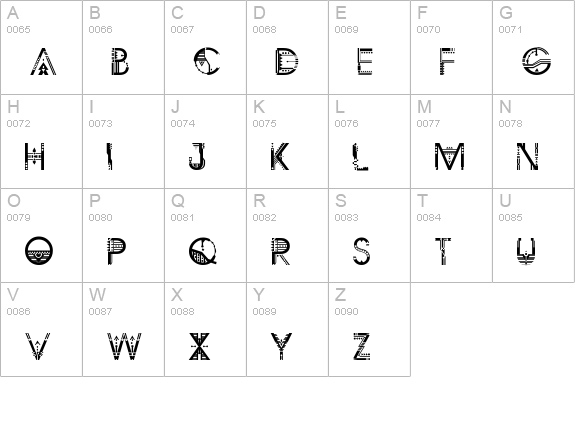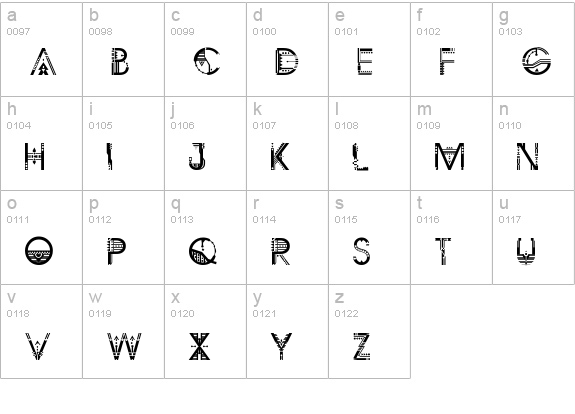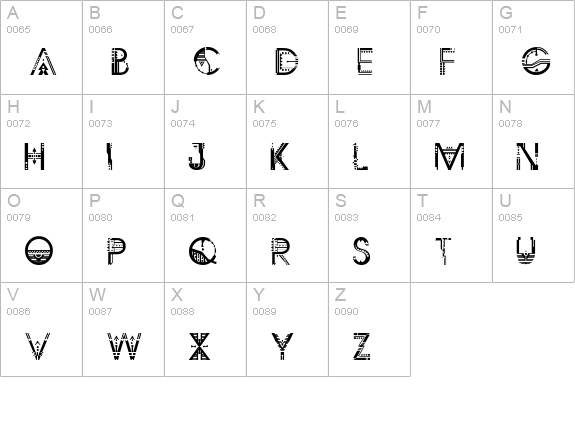
ZILAP GEOMETRIK Font Details
ZILAP GEOMETRIK font is a stunningly modern and sleek typeface that is perfect for adding a touch of sophistication to any design project. Its clean lines and geometric shapes give it a contemporary feel that is both elegant and eye-catching. This font is ideal for a wide range of applications, from branding and logo design to advertising materials and web graphics. Its versatility makes it a go-to choice for designers looking to make a statement with their typography. What sets ZILAP GEOMETRIK font apart is not only its impeccable design, but also the fact that it is available for free. Yes, that's right - this exceptional font can be downloaded without any cost at FontsMarket.com. This means that designers of all levels can now access a professional-quality font without breaking the bank. With ZILAP GEOMETRIK font, you can elevate your designs to new heights. Its sleek and modern aesthetic will instantly grab attention and leave a lasting impression. Whether you're working on a logo, a website, or a print advertisement, this font will help you create a visually striking and memorable piece. So why wait? Head over to FontsMarket.com and download ZILAP GEOMETRIK font for free today. Unleash your creativity and let this exceptional typeface take your designs to the next level.